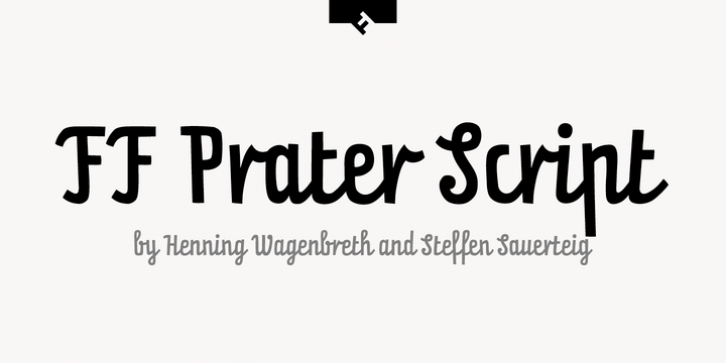
FF Prater Script downloadDesigner: Steffen Sauerteig
Publisher: FontFont
German type designers Henning Wagenbreth and Steffen Sauerteig created this display and script FontFont in 2000.
The font is ideally suited for advertising and packaging, festive occasions, film and tv, editorial and publishing as well as poster and billboards.
FF Prater Script provides advanced typographical support with features such as ligatures, alternate characters, and case-sensitive forms.
It comes with proportional lining and tabular lining figures.
This FontFont is a member of the FF Prater super family, which also includes FF Prater Block, FF Prater Sans, and FF Prater Serif.